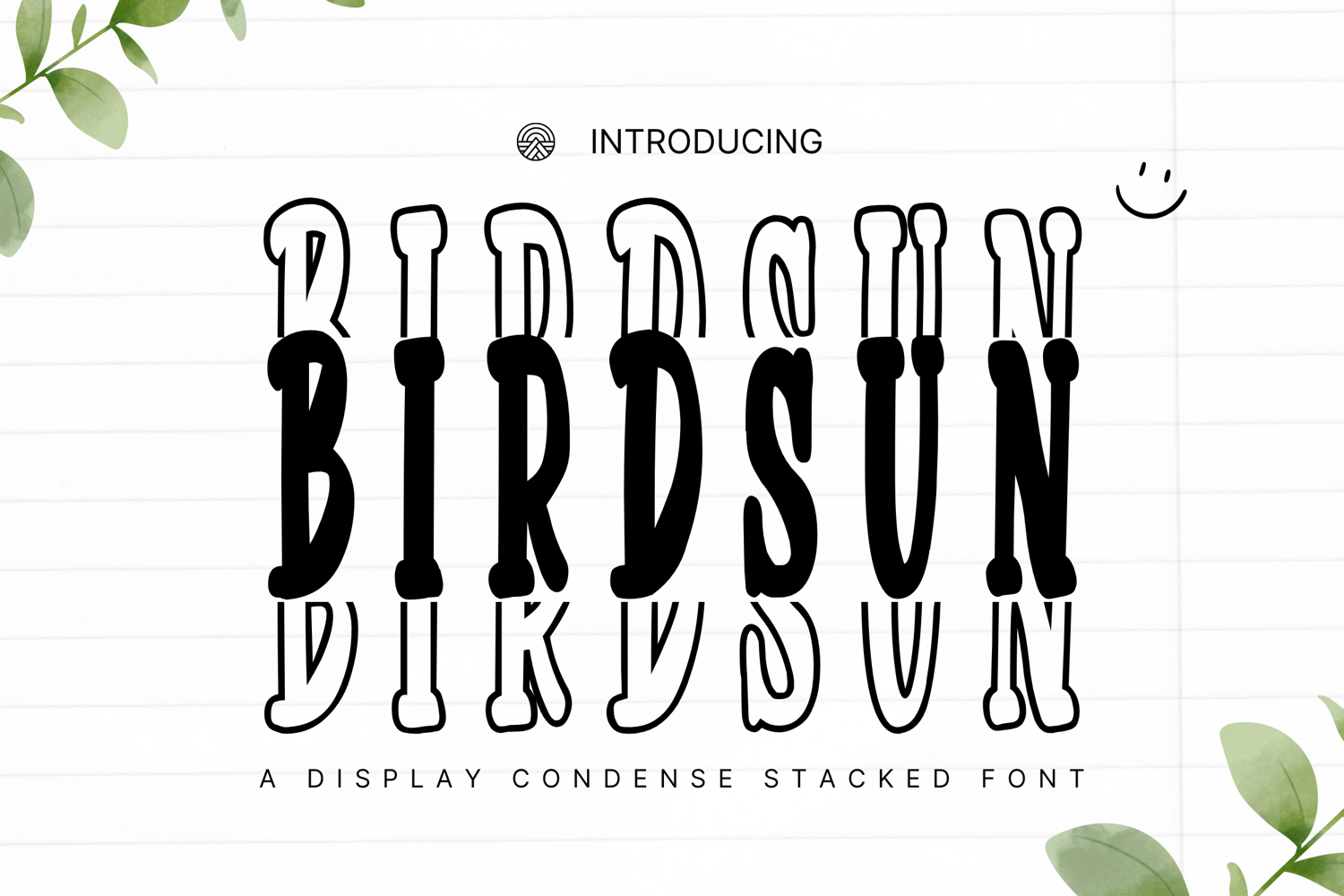
Birdsun Condense Stacked - A Bold & Stylish Display Font
Birdsun Condense Stacked
Birdsun Condense Stacked is a modern, eye-catching condensed font with a unique stacked letter style. Designed to make your words stand tall and shine bright, this font is perfect for creative headlines, posters, logos, album art, editorial layouts, and bold branding projects.
Its vertically elegant and compact form gives your designs a strong, high-impact presence without sacrificing style. Whether you're designing for fashion, music, or social media, Birdsun Condense Stacked delivers a sleek, contemporary vibe.
• Fashion branding & magazine titles
• Music covers & editorial layouts
• Logos & minimalist packaging
• Social media posts & content creators
• Posters, flyers, and event promo